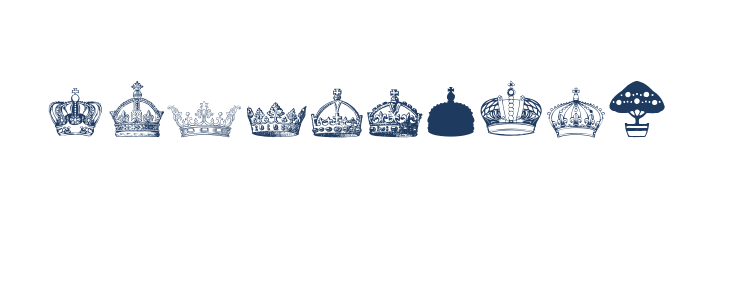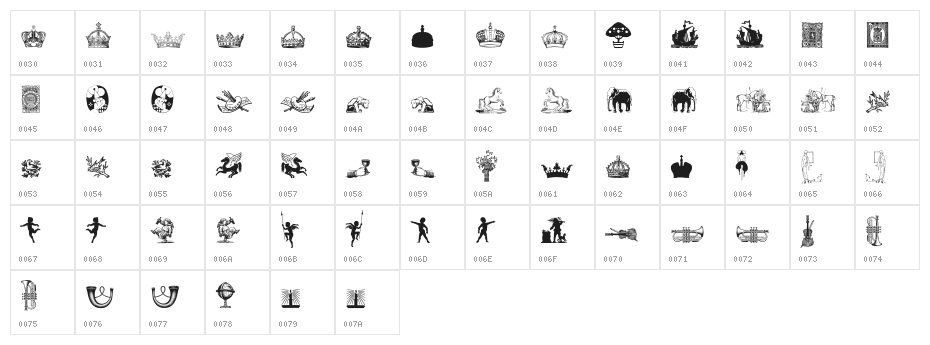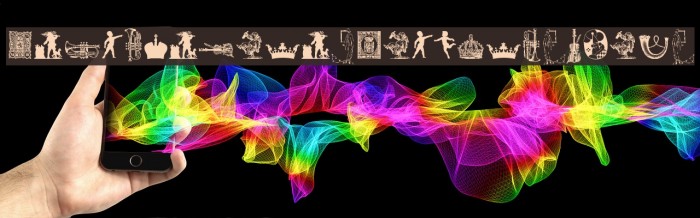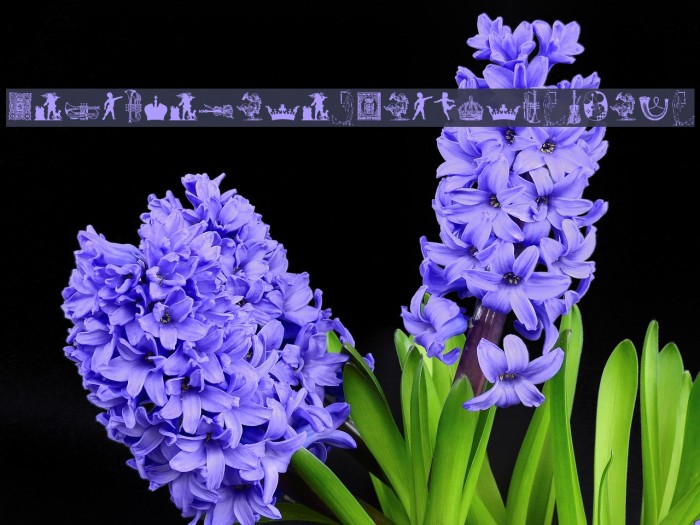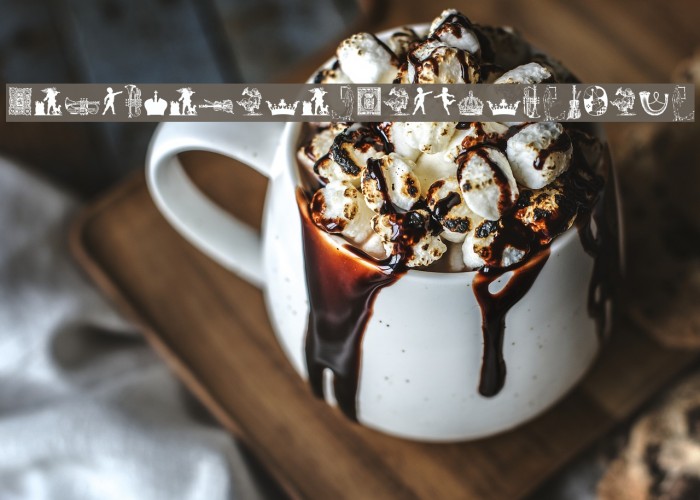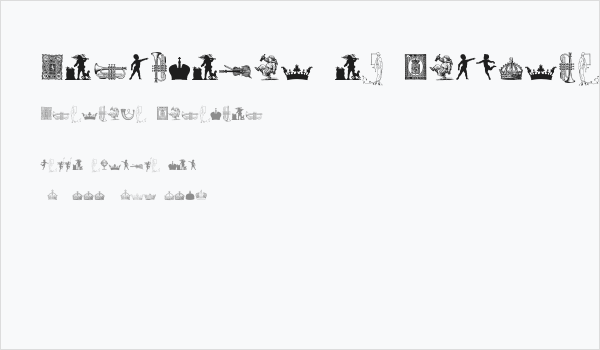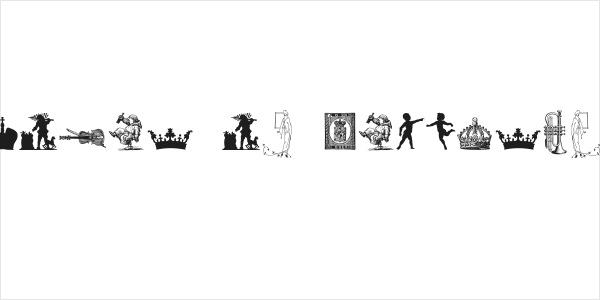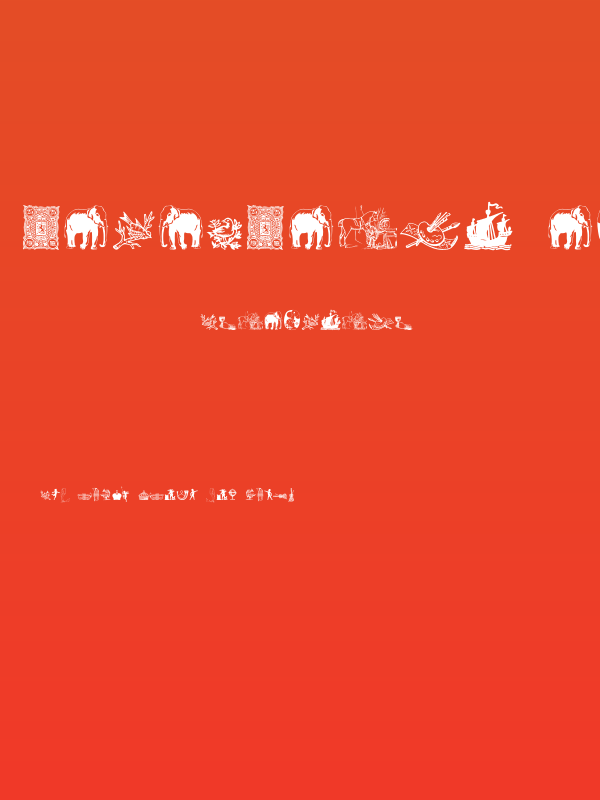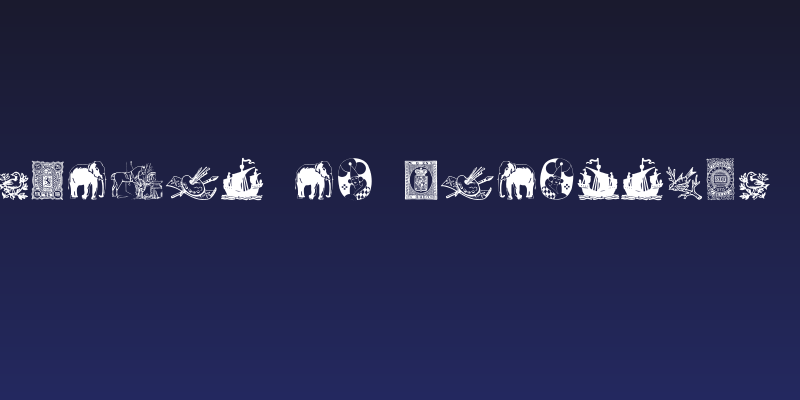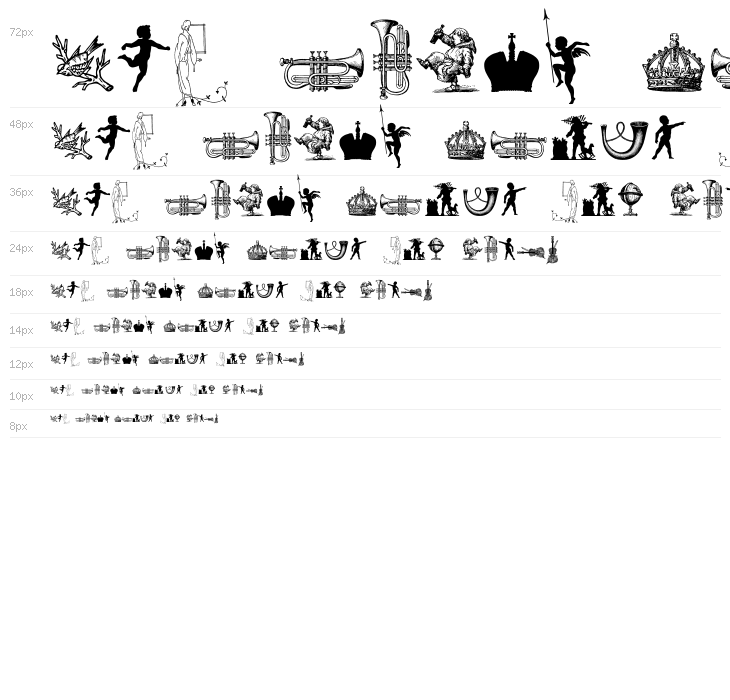
Cornucopia of Dingbates Five Font
Cornucopia of Dingbates Five Description
A decorative dingbat collection featuring detailed black-and-white illustrations of ships, crowns, animals, musical instruments, mythological figures, and various ornate objects. Each glyph is a unique pictorial symbol rather than a standard alphanumeric character.
| Overall Style | Decorative, Vintage, Whimsical |
| Use Case | Decorative elements, Borders, Themed graphics, Scrapbooking |
| Proposed Projects | Invitations, certificates, scrapbooking, vintage-themed designs, decorative borders, and creative projects needing pictorial embellishments. |